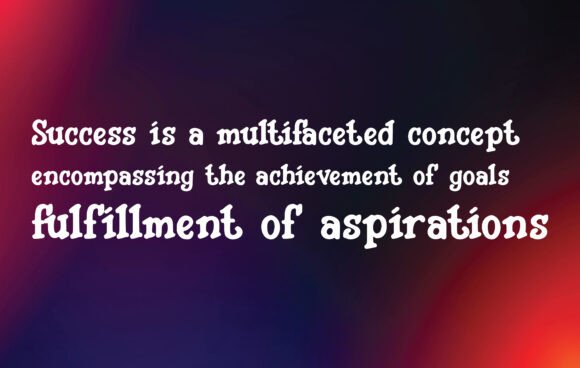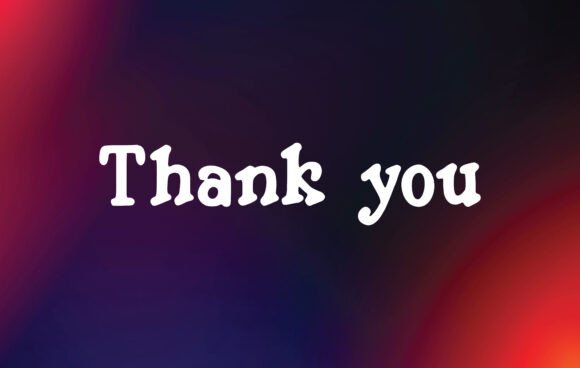
Bhavy Font: The Ultimate Creative Companion for Designers and Crafters
In the world of design, a font can make all the difference. It can elevate your project from ordinary to extraordinary, convey the right mood and tone, and capture the attention of your audience. If you’re a designer or crafter looking for a versatile and eye-catching font to bring your creative ideas to life, look no further than Bhavy Font. This font is designed to be a go-to favorite, suitable for a wide range of projects, from magazine covers to social media posts, and everything in between.
What Makes Bhavy Font Special?
Bhavy Font is crafted with clarity and readability in mind, making it an excellent choice for both titles and body text. Its clean lines and elegant curves ensure that your message is conveyed with precision and style, whether you’re designing for print or digital platforms. This font’s versatility is one of its standout features, allowing you to use it across various mediums and applications.
Endless Possibilities with Bhavy Font
So, what can you create with Bhavy Font? The possibilities are endless! Here are some ideas to get you started:
- Magazine Covers: Make a statement with bold and eye-catching headlines that grab readers’ attention.
- T-Shirts and Apparel: Create stylish and trendy designs that stand out on any type of clothing or accessory.
- Social Media Posts: Elevate your online presence with visually appealing graphics and typography that reflect your brand’s personality.
- Branding and Logo Design: Establish a strong visual identity with a font that exudes professionalism and creativity.
- Wedding Invitations and Stationery: Add a touch of elegance and sophistication to your special occasion designs.
- Greeting Cards and Gift Tags: Make your messages extra special with beautifully crafted typography.
Why Choose Bhavy Font?
With so many fonts available, why should you choose Bhavy Font for your projects? Here are just a few reasons:
- Versatility: Bhavy Font adapts seamlessly to various design contexts, ensuring that your message looks great in any setting.
- Readability: Its clear and legible design makes it perfect for both headings and body text, ensuring that your audience can easily read and understand your content.
- Elegance: Bhavy Font adds a touch of sophistication and style to any design, making it perfect for projects where you want to make a lasting impression.
- Creativity: With Bhavy Font, you can experiment with different styles, colors, and layouts to bring your unique vision to life.
Tips for Getting the Most Out of Bhavy Font
To maximize the potential of Bhavy Font, here are some tips to keep in mind:
- Experiment with Sizes and Styles: Play around with different font sizes, weights, and styles to create visual hierarchy and add depth to your designs.
- Combine with Other Fonts: Pair Bhavy Font with complementary fonts to create interesting contrasts and add personality to your designs.
- Pay Attention to Color: Choose colors that complement your brand’s palette or the mood you’re trying to convey, and experiment with different color combinations to find the perfect match.
Bhavy Font is more than just a font – it’s a creative companion designed to help you bring your ideas to life. With its versatility, readability, and elegance, it’s the perfect choice for designers and crafters looking to add a touch of style and personality to their projects. Whether you’re working on a magazine cover, social media post, or wedding invitation, Bhavy Font is sure to become your go-to favorite. So why wait? Download Bhavy Font today and start creating stunning designs that capture your audience’s attention!